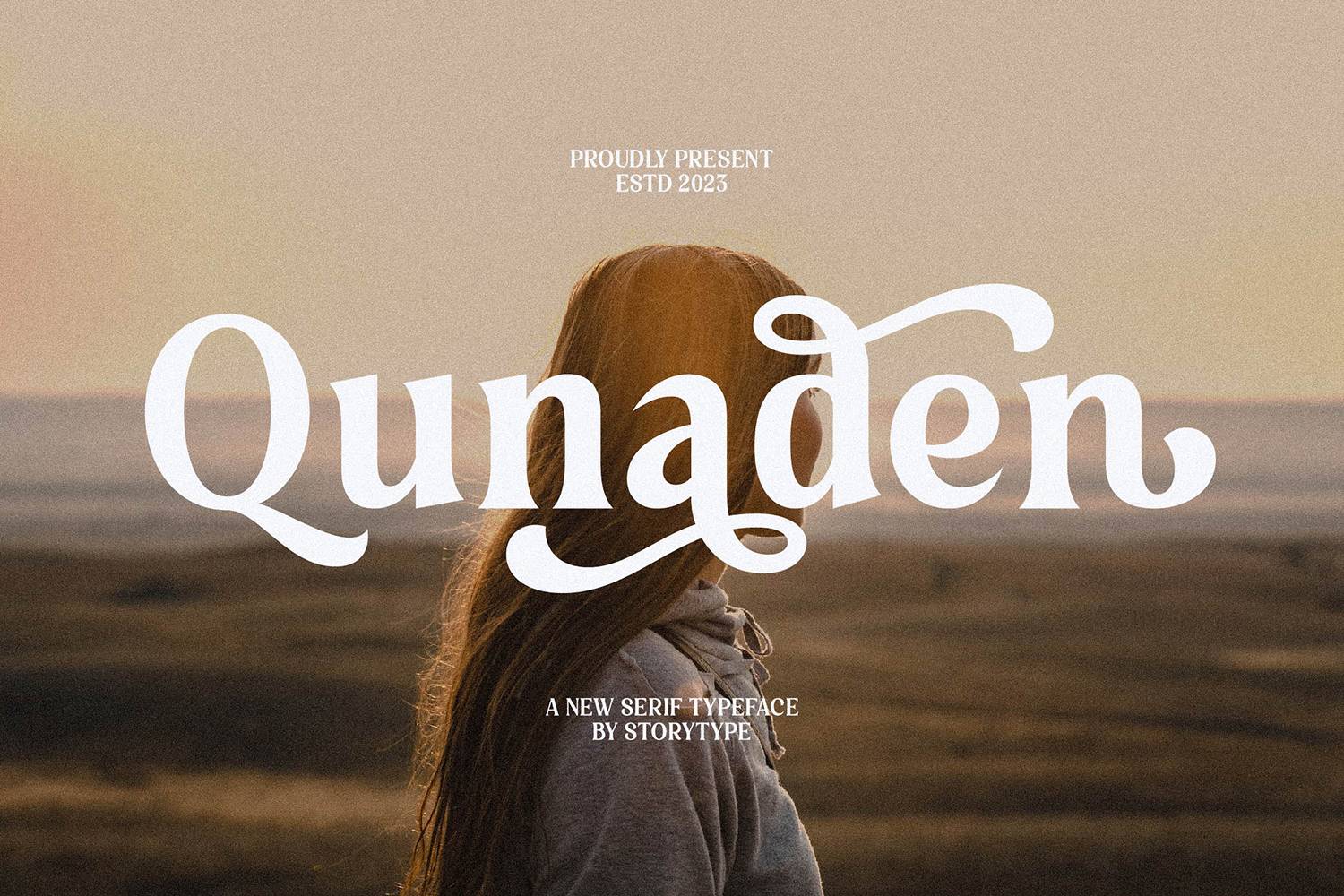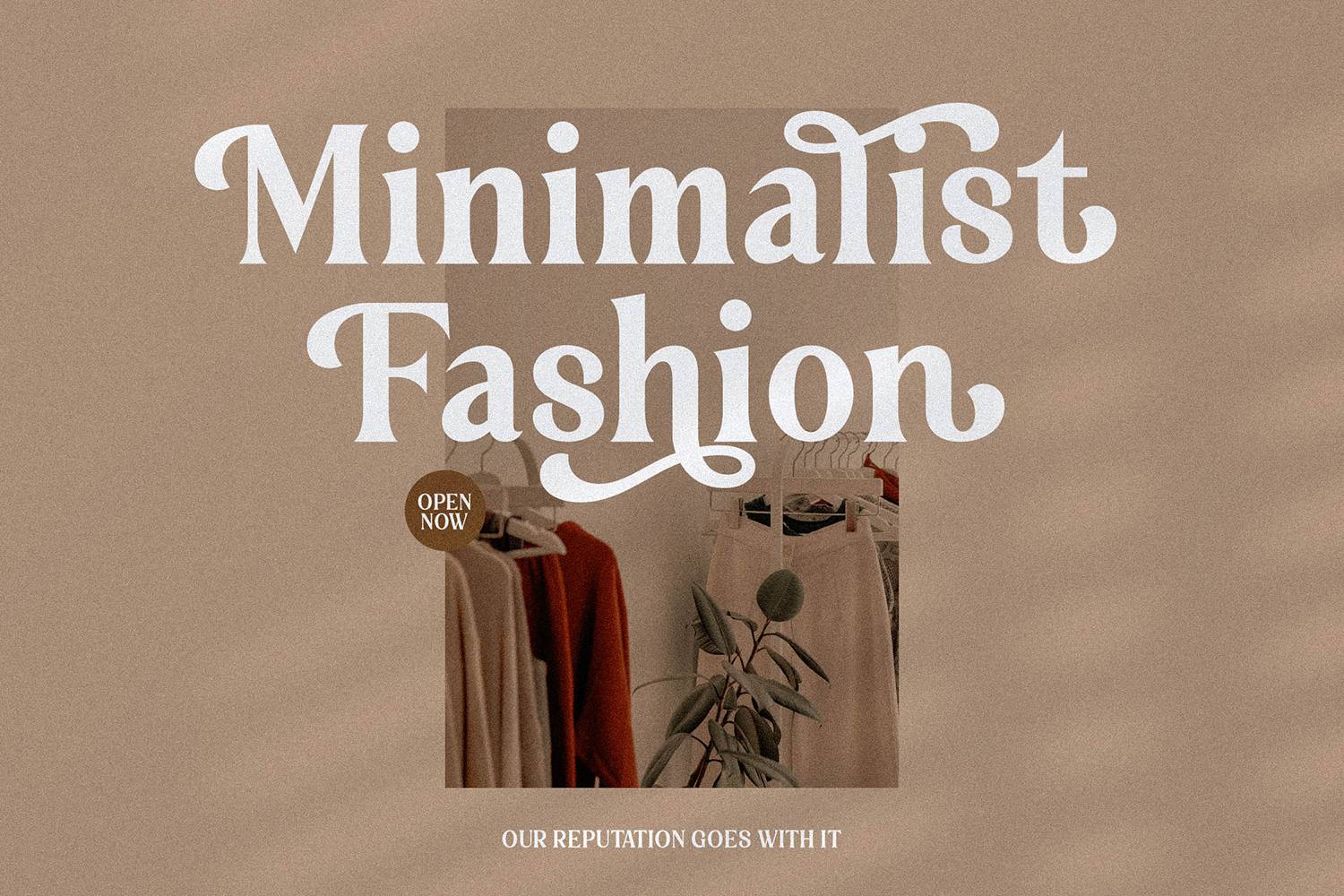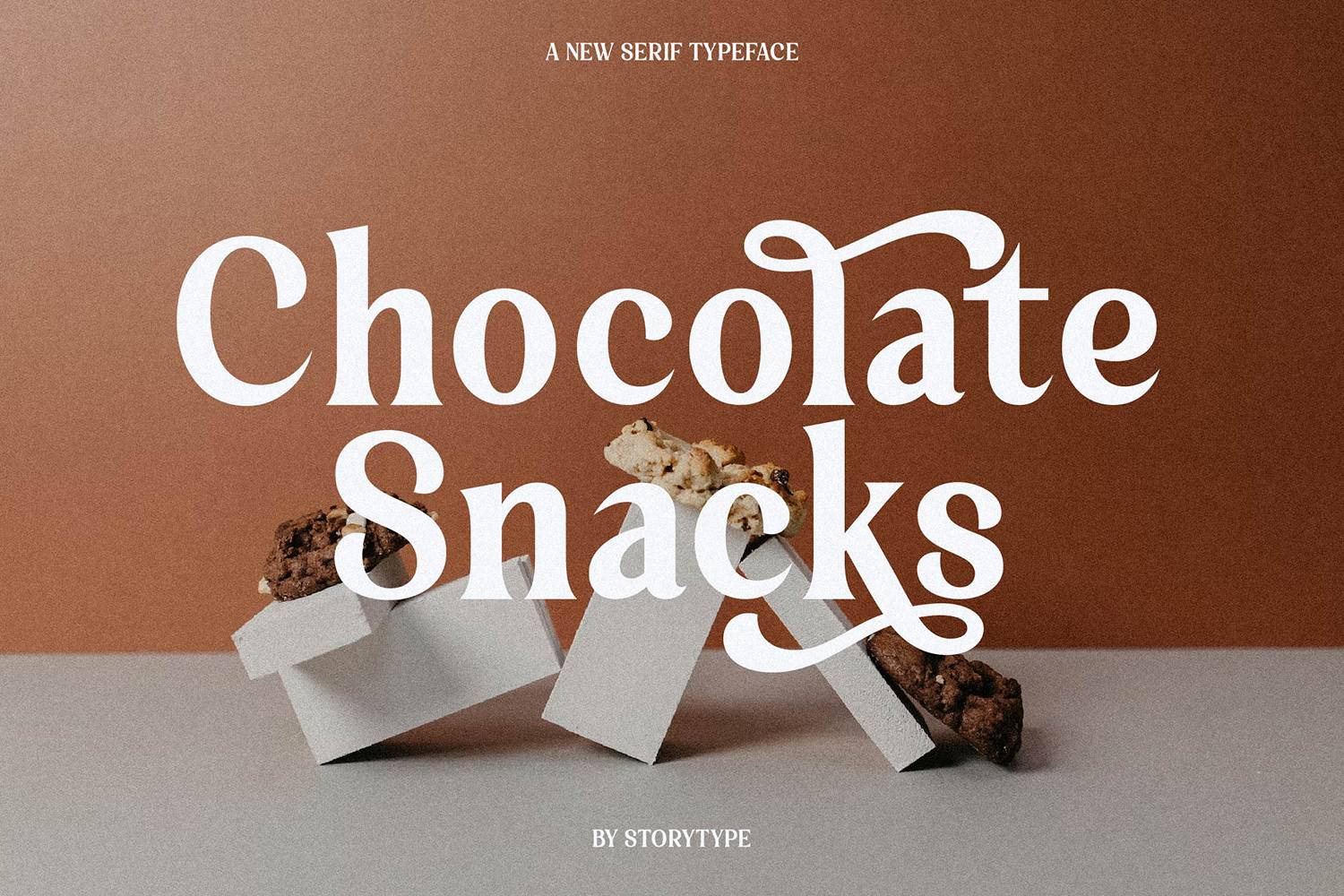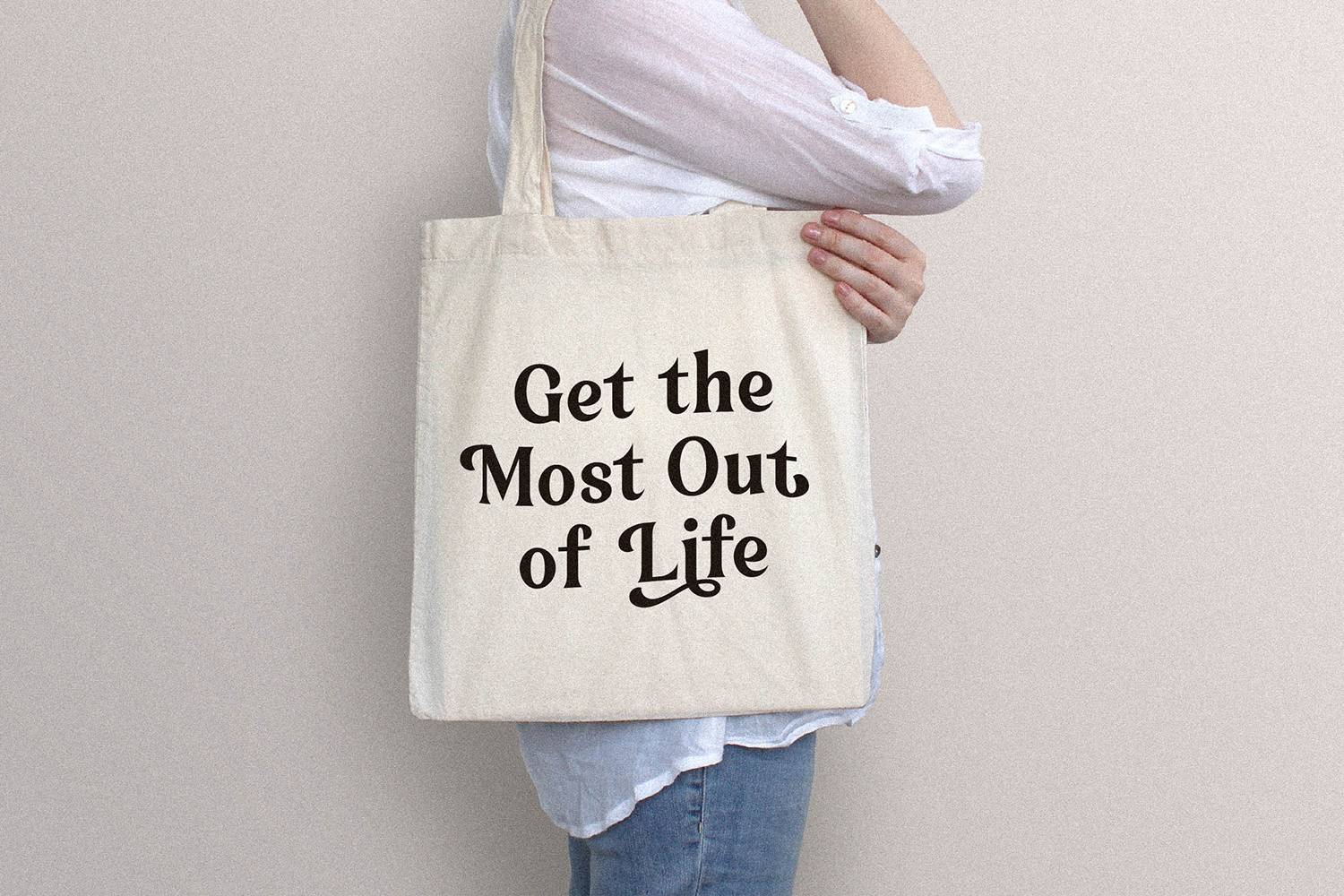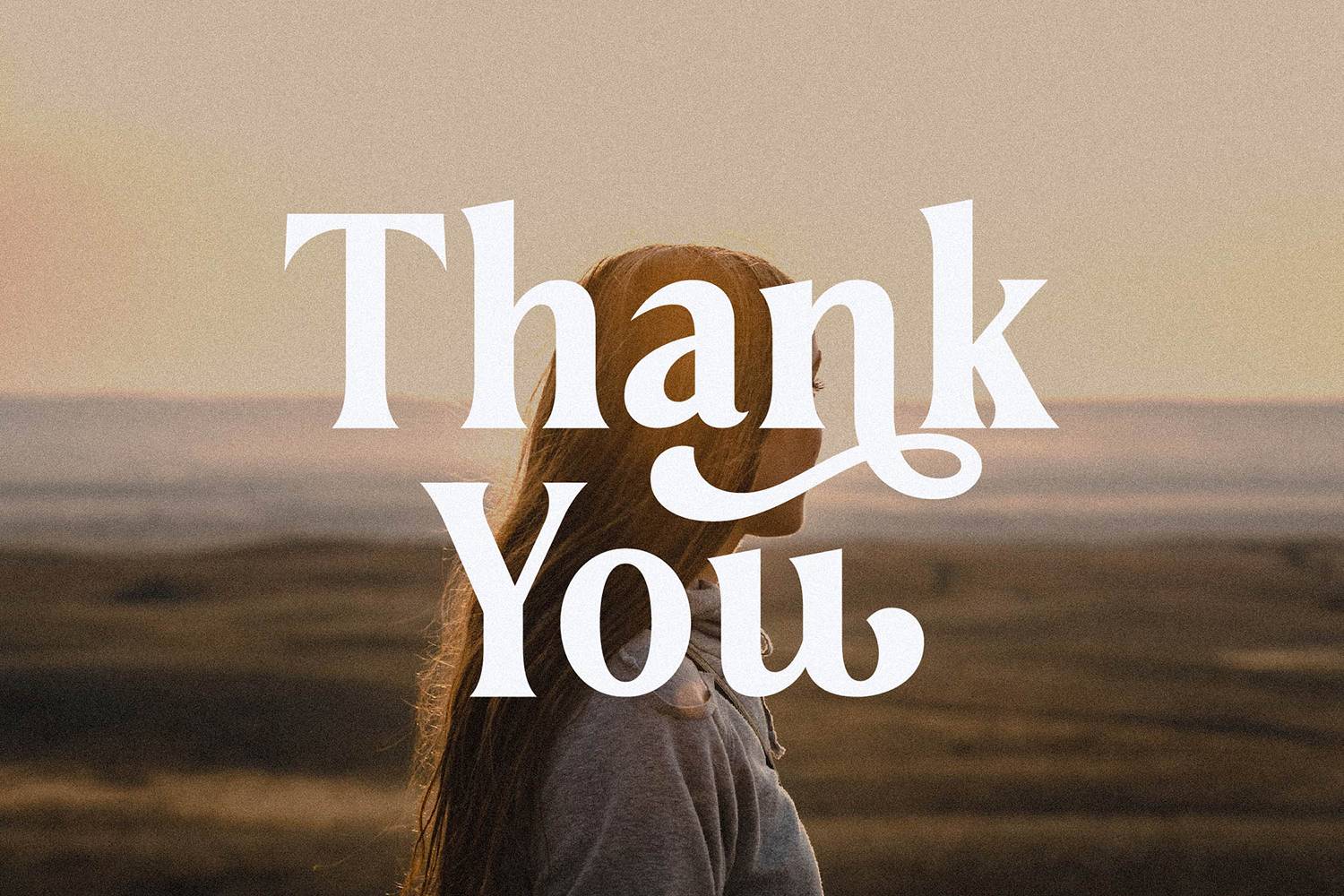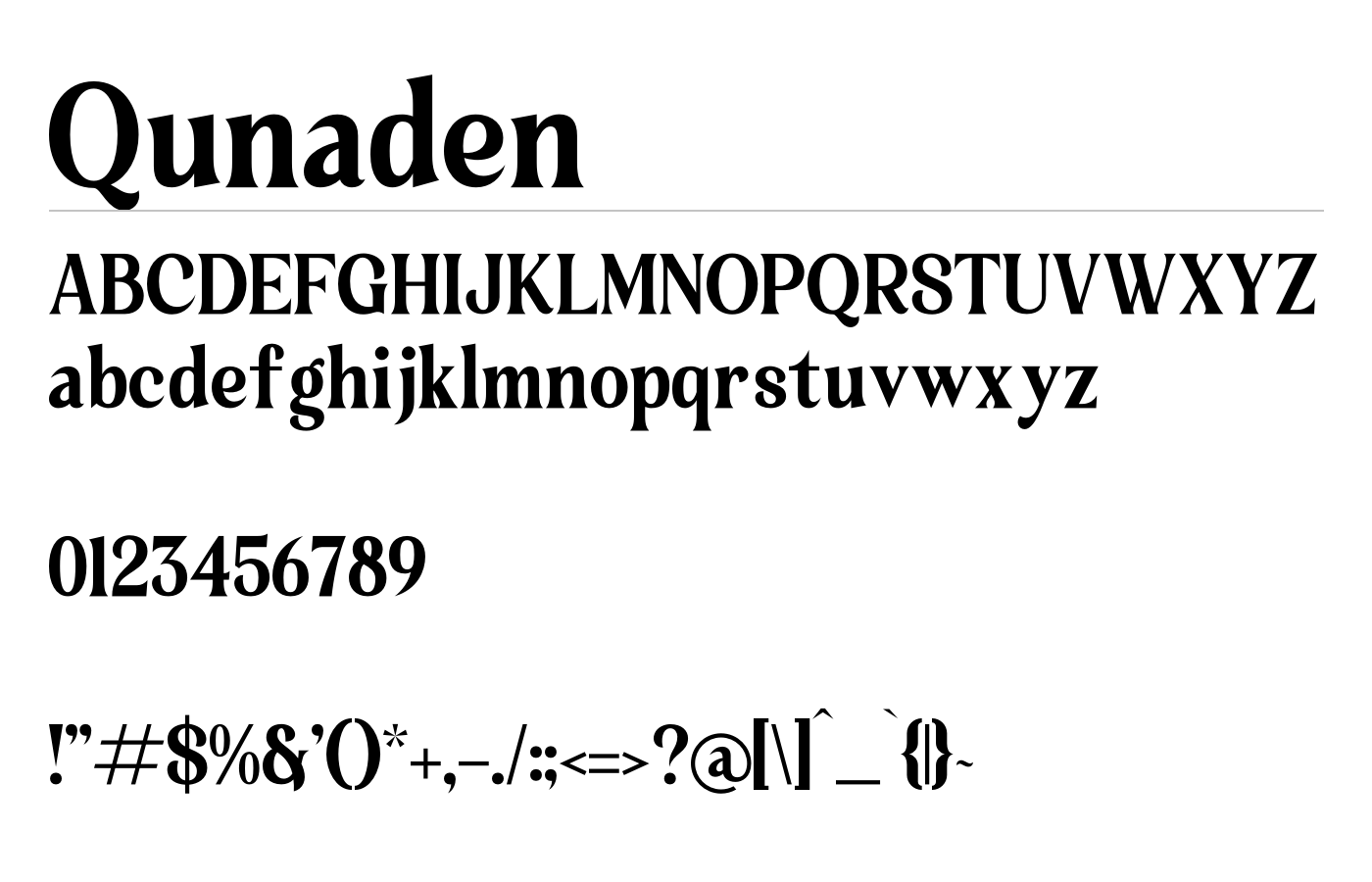
Qunaden is a bold serif font with a strong contrast between thick and thin strokes, featuring bracketed serifs and a slightly condensed width that gives it a confident, classic presence. Its elegant, refined letterforms combine traditional serif details with a modern touch, making it ideal for sophisticated branding, editorial headlines, and luxury packaging where a timeless yet impactful look is desired.
Qunaden Font
About Qunaden Font